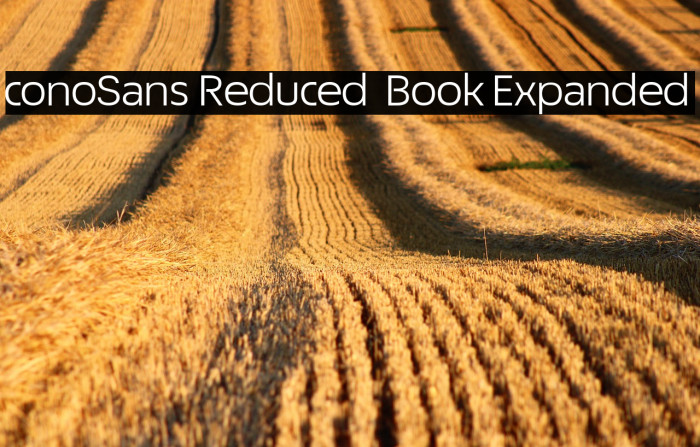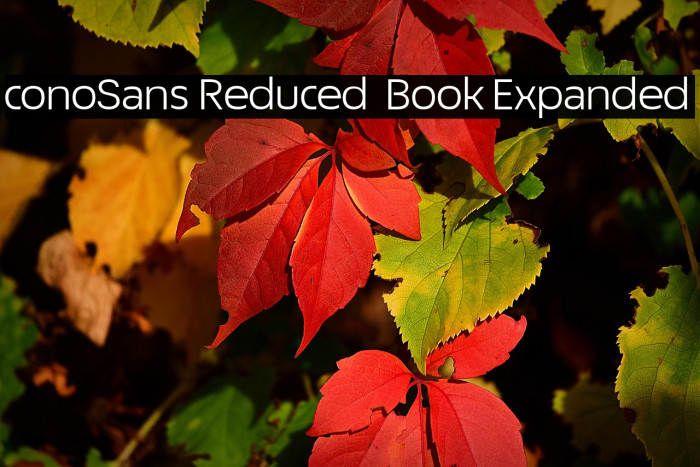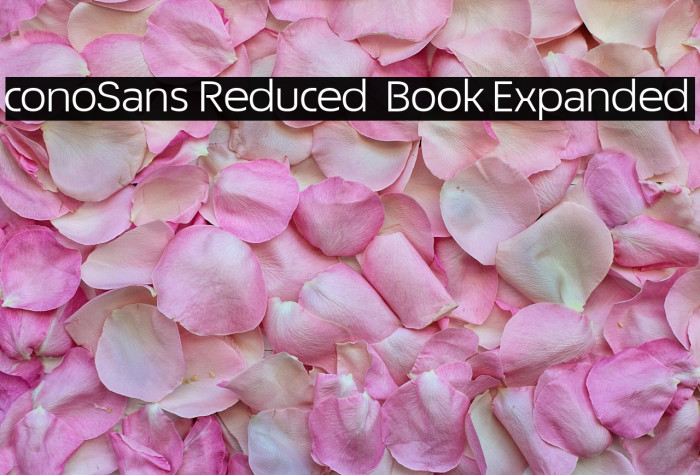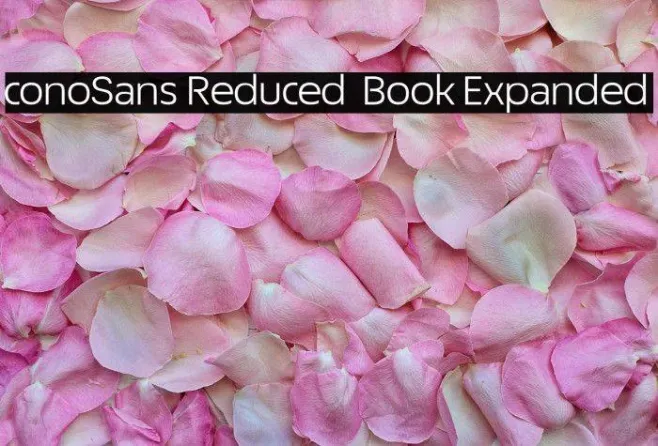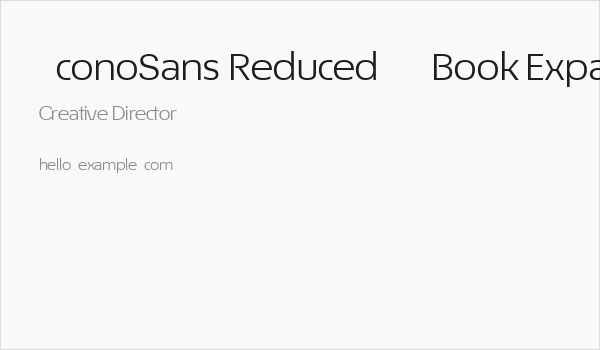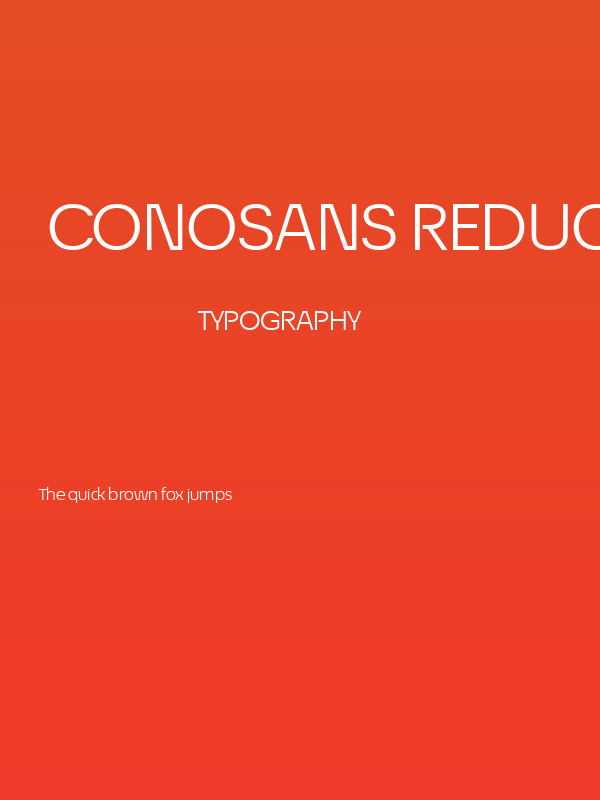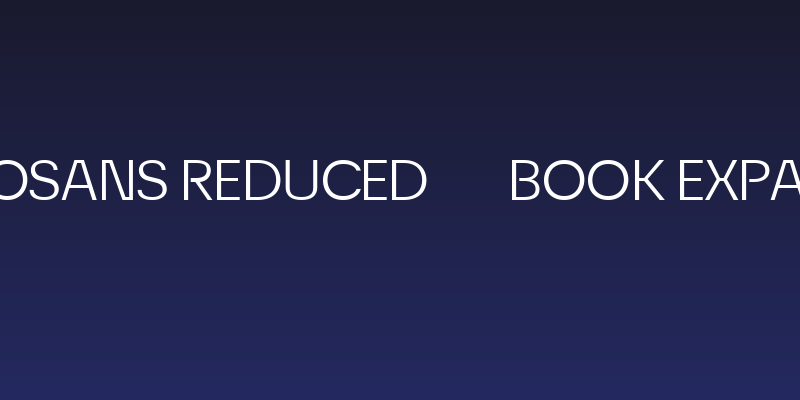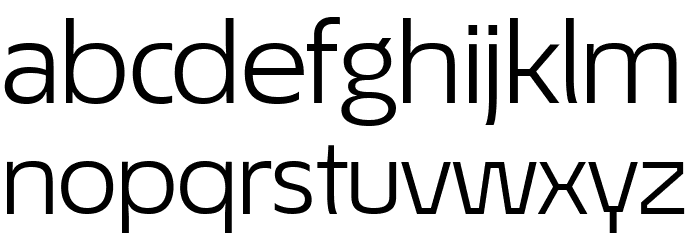
ÉconoSans Reduced 53 Book Expanded Font
ÉconoSans Reduced 53 Book Expanded Description
This typeface features a clean and modern sans-serif design, characterized by its geometric shapes and uniform stroke widths. The letters are well-proportioned with a slightly expanded width, giving them a spacious and airy appearance. The uppercase and lowercase letters maintain a consistent style, with smooth curves and straight lines that enhance readability. The numerals and special characters are designed to match the overall aesthetic, ensuring a cohesive look across all text elements. This font is versatile, suitable for both digital and print media, and can be used effectively in a variety of design contexts.
| Proposed Projects | Ideal for branding, web design, advertising, and editorial layouts. |